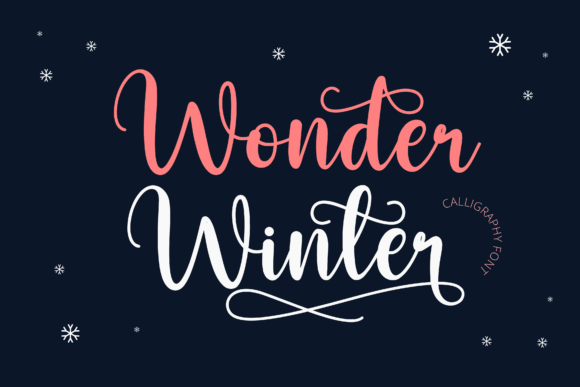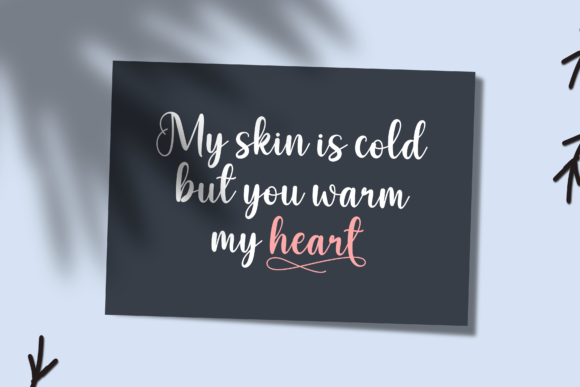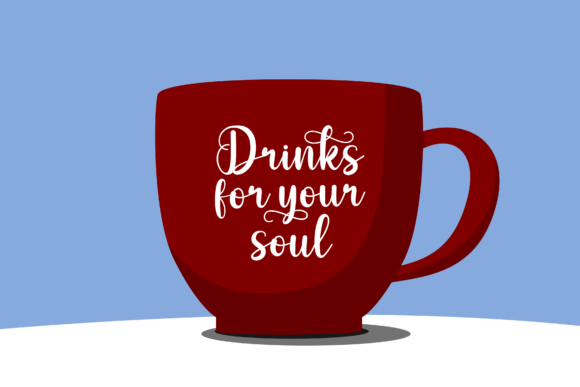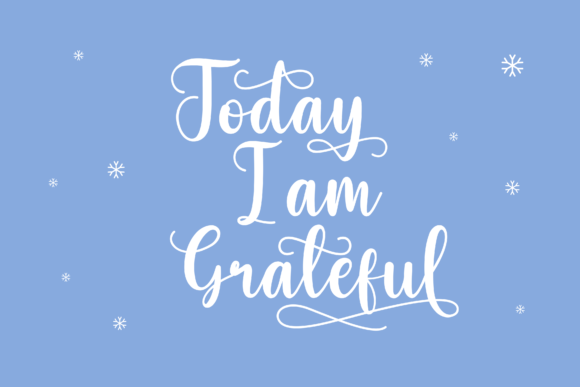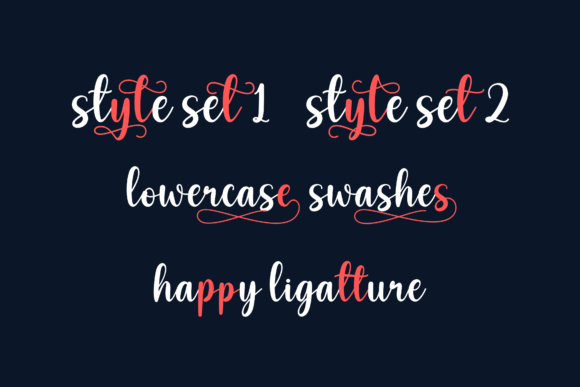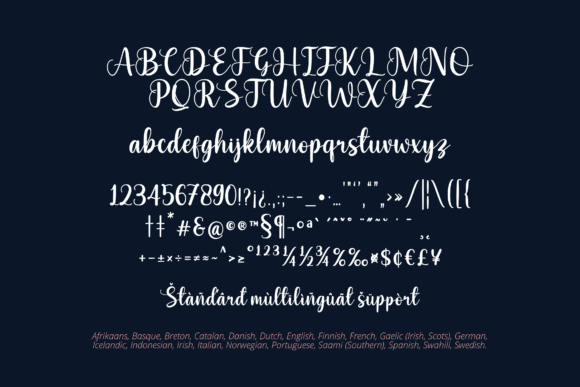
About Wonder Winter Font
Wonder Winter is an elegant and sophisticated handwritten font that will elevate the appearance of all your creative projects. Use it to express words above the background!